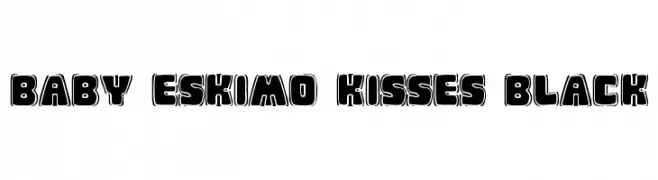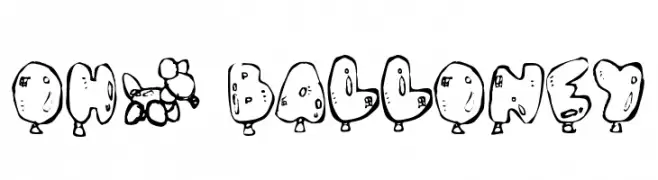
A bold, playful font with exaggerated, dynamic characters.
A bold, playful font with rounded, cartoonish characters.
A playful, bold font with whimsical, cartoonish letterforms.
A playful, hand-drawn font with bold, irregular strokes and a whimsical style.
A bold, playful font with irregular, jagged characters and a hand-drawn feel.
A playful, stone-like font with a rugged, textured appearance.
A bold, playful font with rounded characters and contrasting outlines.
A playful, balloon-themed font with bold, rounded characters and decorative strings.